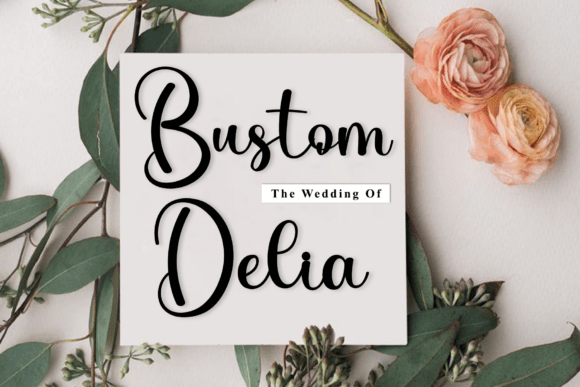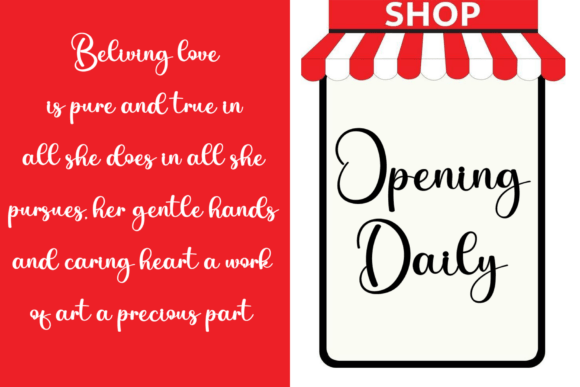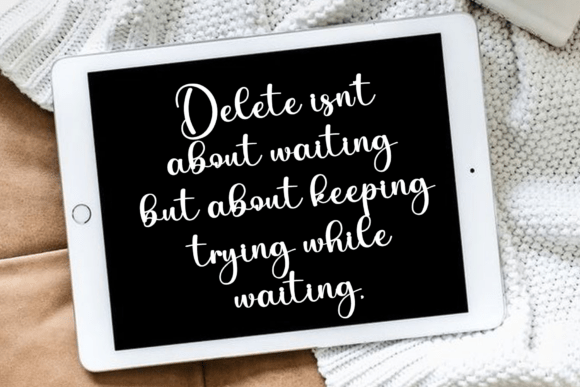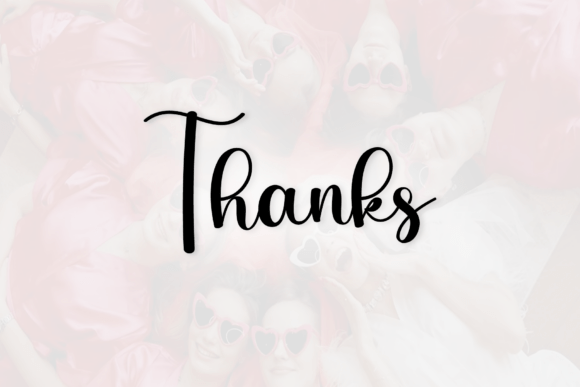
The Art of Crafting Unique Brand Identities
Have you ever found yourself pouring over a beautifully designed label on a gourmet cheese board, mesmerized by the elegant script that reads “Artisanal Handcrafted”? That’s the magic of typography, and for designers, it’s a moment of pure joy. The right font can elevate a brand’s message, evoke emotions, and leave a lasting impression.
Enter Bridesmade Font, a sophisticated and rhythmic script font that brings a touch of customized artistry to any design. This stunning font is perfect for artisanal food branding, boutique product packaging, and upscale lifestyle marketing. Its sweeping, looping ascenders create a sense of warmth and organic charm, making it a premier choice for designers looking to craft unique brand identities.
Whether you’re a seasoned designer or just starting out, Bridesmade Font is an invaluable tool in your creative arsenal. Its versatility and elegance make it a must-have for any project that demands sophistication and style.
Bridesmade Font Key Features
- Unique Characteristics: Bridesmade Font features elegant, cursive script with a touch of vintage charm, making it perfect for wedding invitations, greeting cards, and other special occasions.
- Font Styles: The font includes 6 different styles, including Regular, Italic, Bold, Bold Italic, Swash, and Swash Italic, offering users a range of design options.
Bridesmade Font Review
As a designer, I was excited to dive into the world of Bridesmade Font, a script font designed specifically for wedding invitations and other romantic occasions. Here’s my honest take on what works well and what doesn’t.
- Unique and elegant feel: Bridesmade Font has a distinctive, whimsical style that’s perfect for weddings and other special events.
- Customizable: The font comes in a range of weights, from light to bold, making it easy to adjust the style to suit your needs.
- Wide character set: Bridesmade Font includes a wide range of characters, including numbers, punctuation, and special symbols, making it a great choice for wedding invitations and other formal documents.
- Not ideal for body text: While Bridesmade Font is perfect for titles and headings, it’s not the best choice for large blocks of body text due to its ornate and elaborate style.
- May not be suitable for digital use: The font’s complex design may cause issues when used in digital formats, such as web pages or mobile apps.
Bridesmade Font is a beautiful and unique font that’s perfect for special occasions. While it may have some limitations, its elegant style and customizable options make it a great choice for designers looking to add a touch of romance to their projects.
Bridesmaid Font Guide
For best results, use the Bridesmaid Font in combination with elegant and feminine graphics, such as flowers or lace patterns.
For a more dramatic effect, use the Bridesmaid Font in bold or italic styles.
Use the Bridesmaid Font for wedding invitations, bridesmaid gift tags, or wedding stationery.
To get the most out of the Bridesmaid Font, experiment with different font sizes, colors, and combinations with other fonts.
For a unique look, pair the Bridesmaid Font with watercolor or hand-drawn graphics.